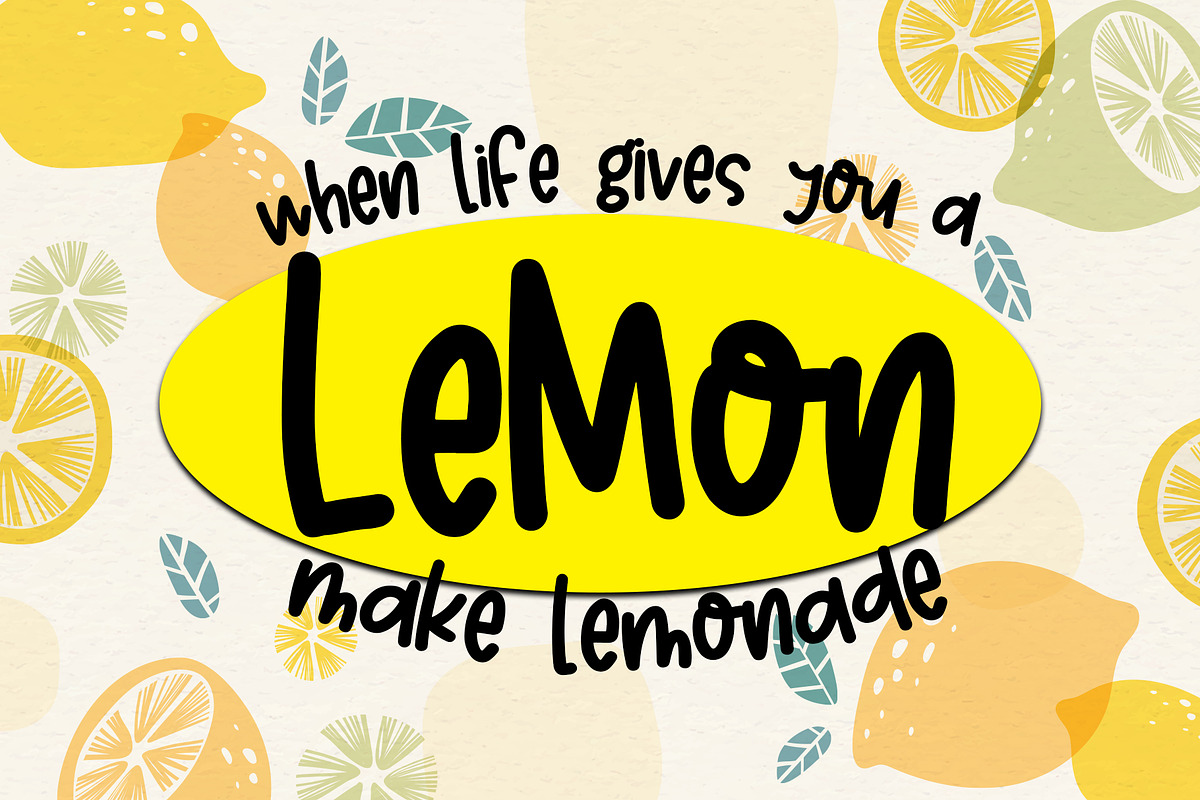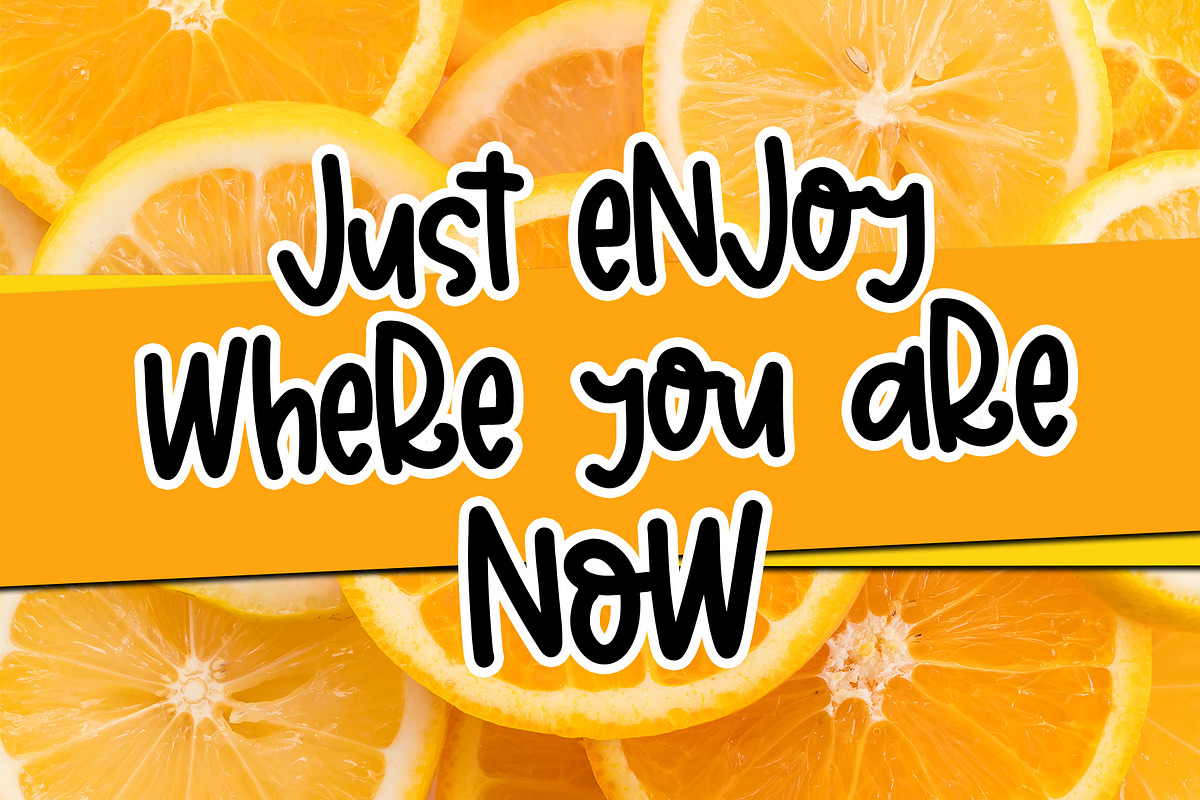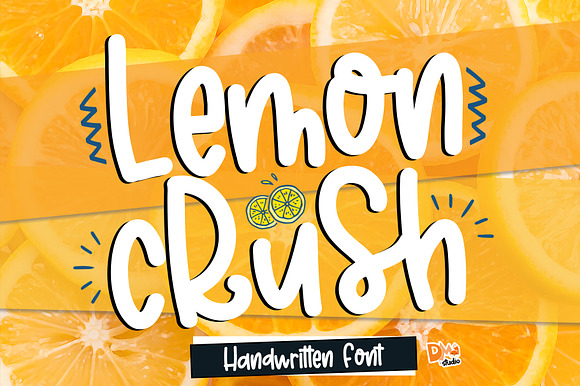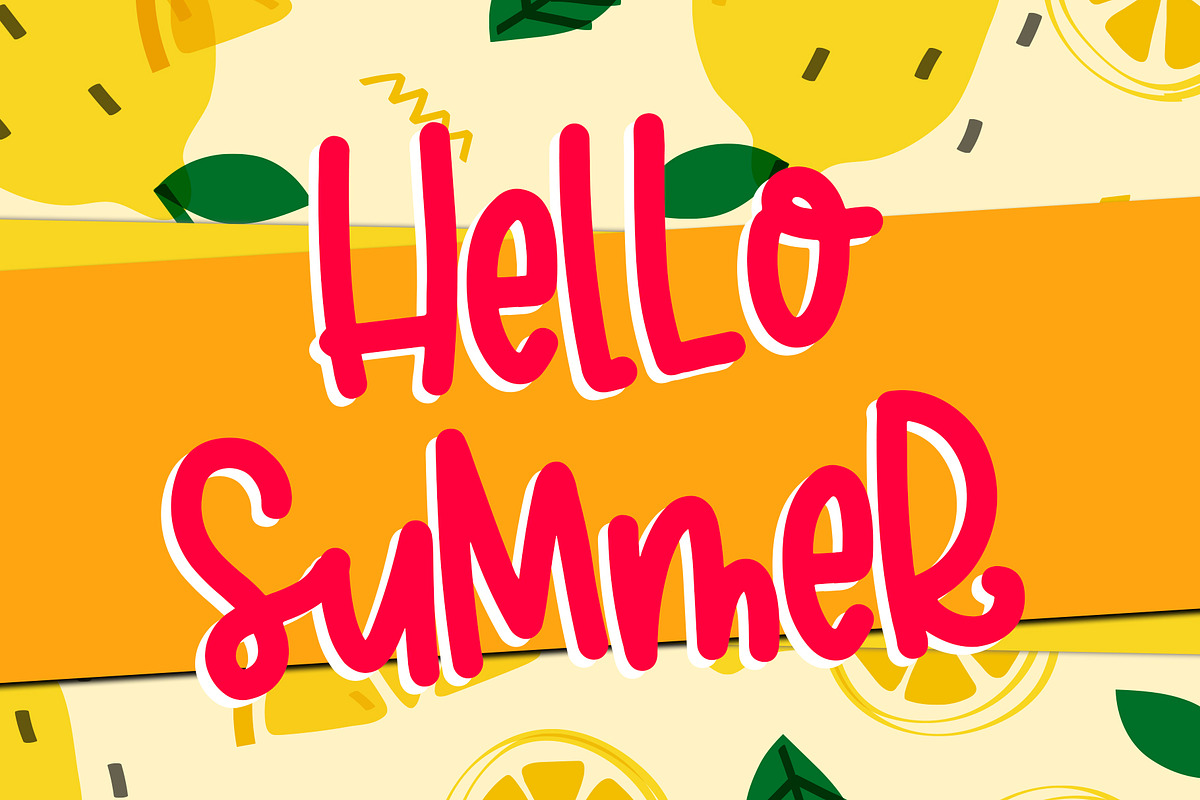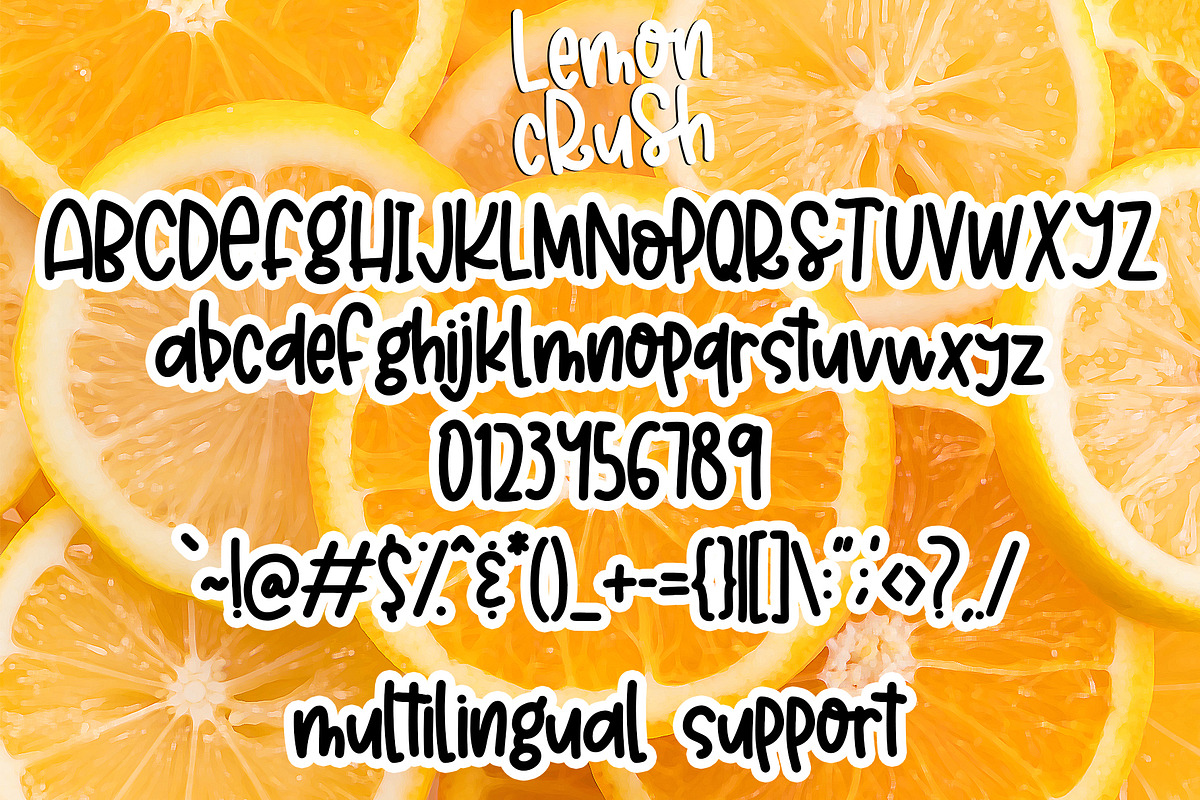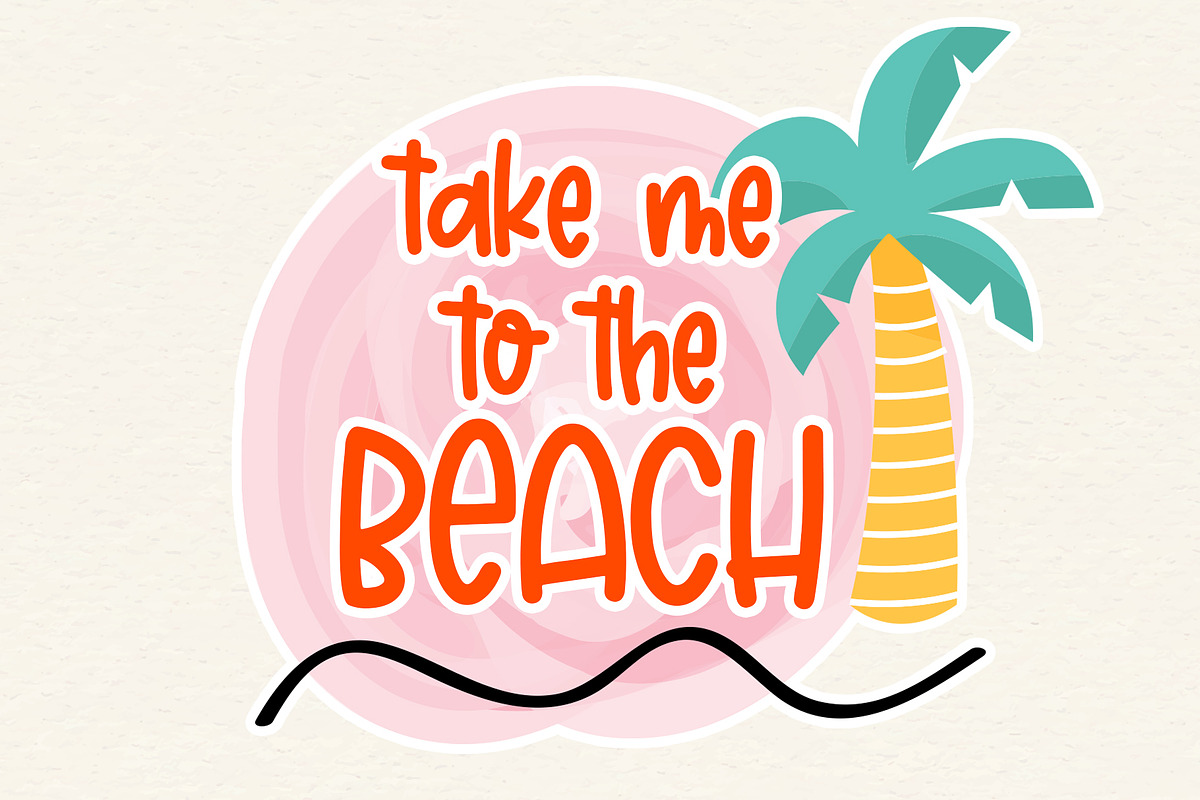
Lemon Crush - Handwritten Font
Lemon Crush is a fresh, cute and versatile crafty font!
Uppercase and lowercase
Lemon Crush - Handwritten Font by Dm Studio fits naturally into Branding, posters, packaging, typography.